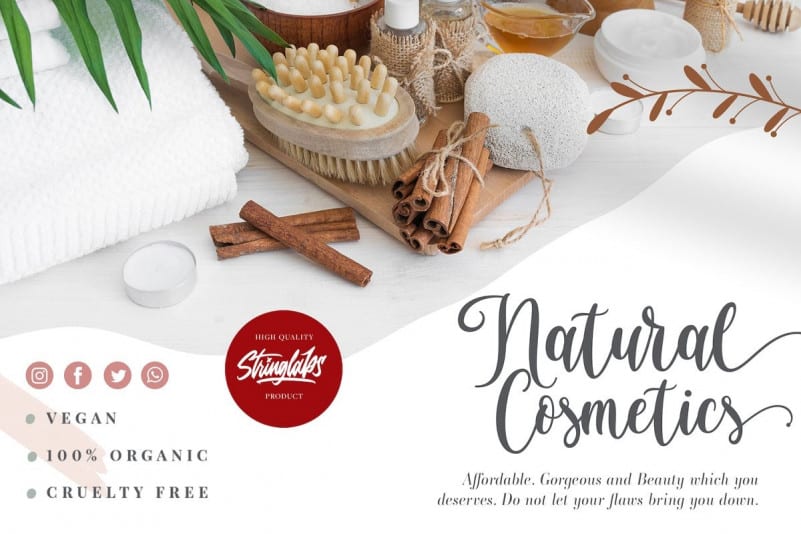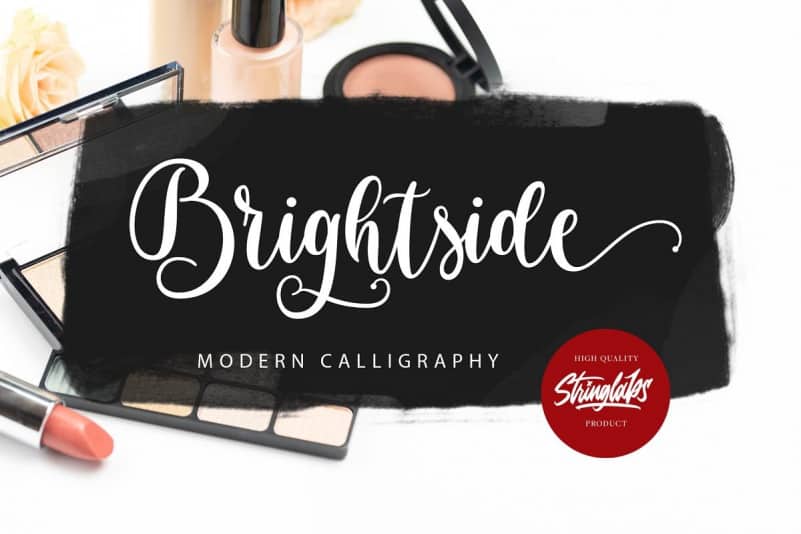
Brightside Calligraphy Font
Brightside Calligraphy Font is a modern calligraphy script font can make your text appear elegant, luxurious, and modern!. It is PUA encoded which means you can access all of the glyphs and swashes with ease! It features a varying baseline, smooth lines, gorgeous glyphs and stunning alternates. Brightside will turn any creative idea into a true piece of art!
Brightside Calligraphy Font is perfect for branding projects, logo, wedding designs, social media posts, advertisements, product packaging, tshirt design, product designs, label, photography, watermark, invitation, stationery and any projects.